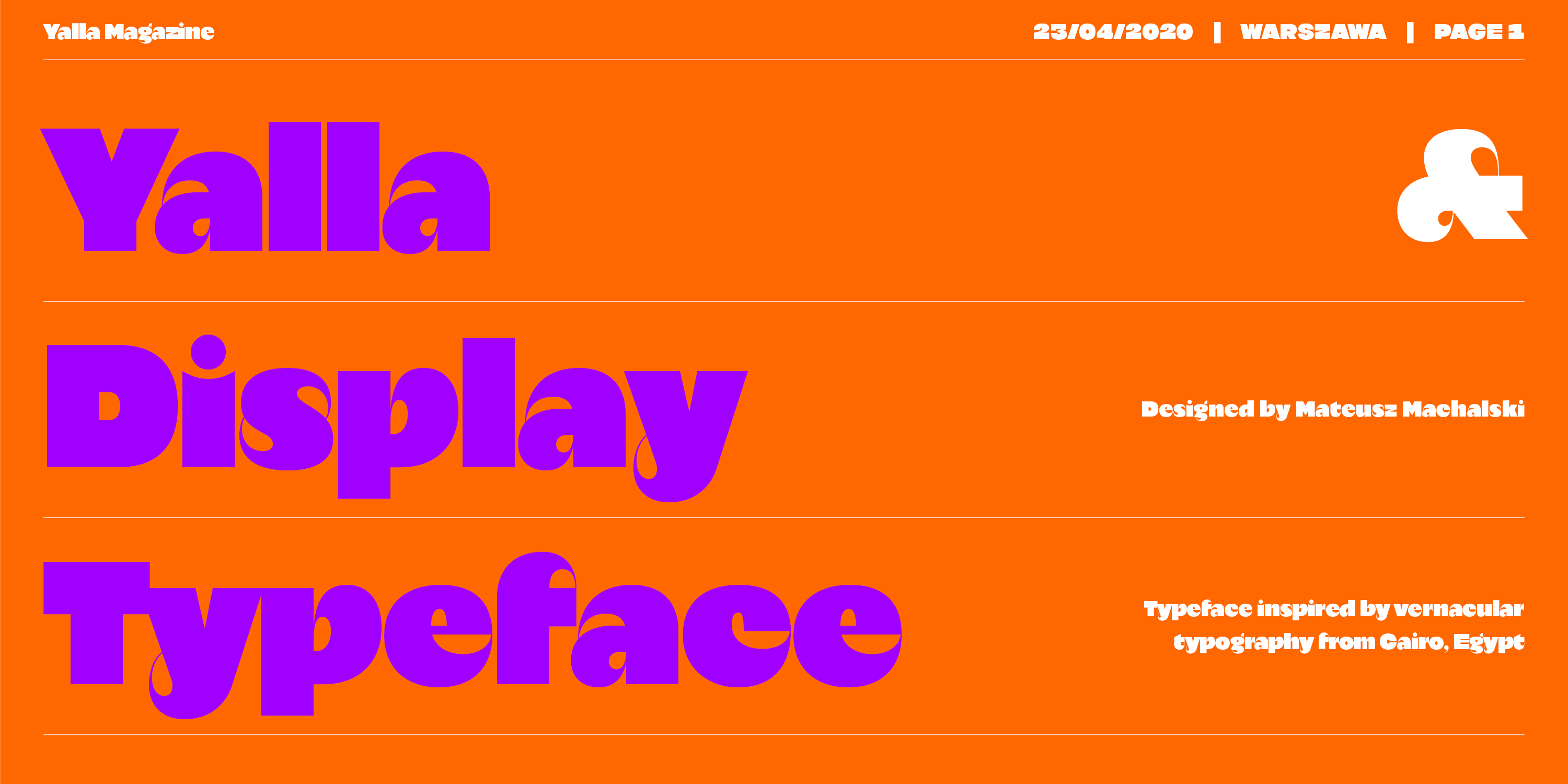
The Yalla Font is perfect for Middle Eastern restaurant branding, Arabic cultural event posters, multicultural festival graphics, international food packaging, travel agency advertisements, cultural center signage, ethnic cuisine menus, cross-cultural communication materials, and diverse community outreach programs.
What makes the Yalla Font so exciting is its vibrant multicultural spirit that instantly conveys energy, enthusiasm, and cross-cultural connection. This dynamic typeface embodies the welcoming nature of Middle Eastern hospitality and the universal language of friendship, creating an immediate sense of warmth and inclusivity. The font's lively character communicates the joy of cultural exchange and the excitement of discovering new experiences that businesses serving diverse communities need to attract customers from various cultural backgrounds.
The Yalla Font family includes Regular weight featuring complete uppercase and lowercase character sets, comprehensive numerical collections, essential punctuation marks, and multicultural symbols that maintain the energetic aesthetic throughout your diverse cultural design projects.
Multicultural businesses and community organizations consistently choose Yalla Font Free Download for projects that require authentic cross-cultural appeal and inclusive communication. This exceptional typeface excels in environments where creating bridges between different cultures is essential for building community connections and customer loyalty. The font's enthusiastic character helps establish the welcoming atmosphere that diverse audiences seek when exploring new cultural experiences.
The distinctive features of Yalla Font reflect the dynamic energy of multicultural communities where different traditions blend together to create vibrant new experiences. Each character demonstrates the lively spirit that characterizes successful cross-cultural communication and community building. The font's proportions and spacing create perfect balance between readability and cultural excitement that modern diverse businesses require for effective outreach.
Contemporary multicultural enterprises appreciate how Yalla Font communicates inclusivity and cultural celebration. Whether designing promotional materials for international festivals, creating signage for ethnic restaurants, or developing marketing for cultural exchange programs, this font delivers the authentic character that distinguishes genuinely inclusive businesses from those that merely claim diversity. The typeface works exceptionally well for organizations emphasizing cultural understanding, community building, and shared human experiences.
The versatility of Yalla Font extends across multiple multicultural applications and community engagement initiatives. Travel companies utilize its energetic character for Middle Eastern destination marketing and cultural tour promotions. Language schools choose it to communicate the excitement of learning new languages and exploring different cultures. Community centers rely on its welcoming appearance to promote cultural events and cross-cultural programming.
Digital multicultural platforms benefit from Yalla Font's optimized performance across various languages and international character sets. The font maintains its vibrant character whether displayed on multilingual websites, mobile cultural apps, or digital community bulletin boards. This technical versatility ensures consistent brand presentation across all multicultural communication channels.
The emotional appeal of Yalla Font resonates with audiences who celebrate diversity and appreciate cultural richness. The typeface serves as a visual invitation to explore new cultures and connect with different communities that helps multicultural businesses build lasting relationships with diverse customer bases. This connection to cultural curiosity and human connection makes it invaluable for establishing successful multicultural brand identities.
Cultural communication specialists and diversity marketing professionals recognize Yalla Font as an effective tool for authentic multicultural branding. The font captures the spirit of cultural celebration while making inclusive design accessible to contemporary organizations who want to communicate their genuine commitment to diversity and cross-cultural understanding in today's interconnected world.